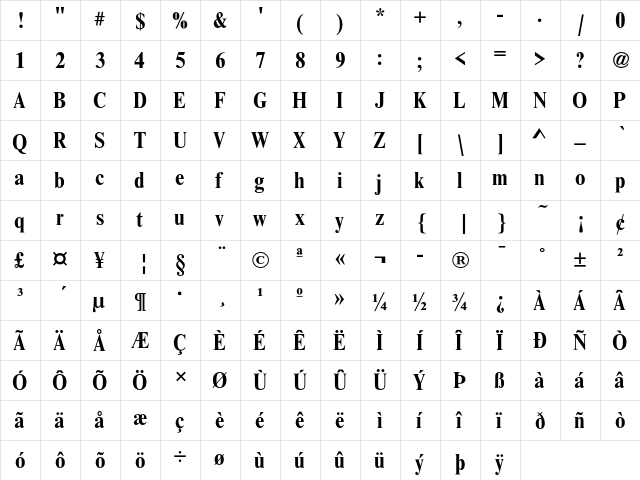
Nimbus Roman No9 Cond L Bold Font Preview
Nimbus Roman No9 Cond L Bold
Design Context for Nimbus Roman No9 Cond L Typeface
Nimbus Roman No9 Cond L takes a measured approach to typography — its balanced proportions and neutral character make it a reliable workhorse for both digital and print work. Its bold stroke weight gives it real presence on the page. Its narrow stance lets it pack a punch even in space-constrained designs.